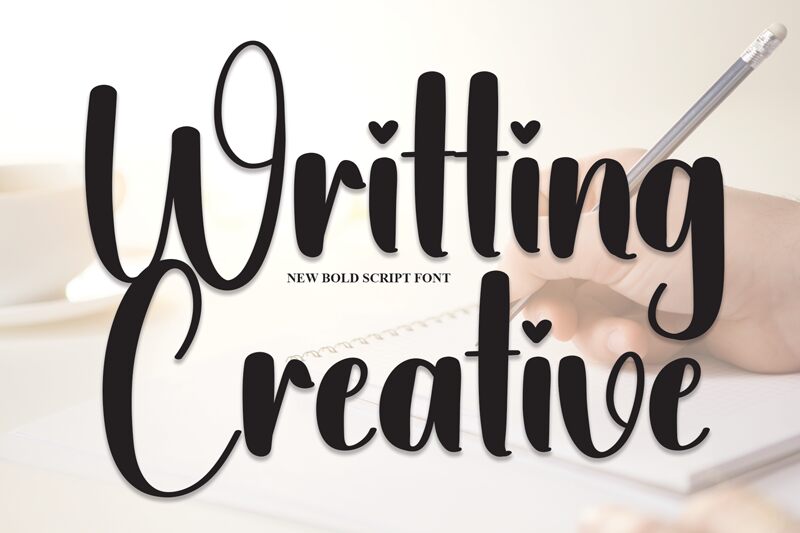
Writting Creative
Writting Creative, a captivating calligraphy font created by Scratchones, is the perfect choice for projects that demand elegance and sophistication.
Its graceful strokes and fluid curves exude a sense of artistry and refinement, making it ideal for wedding invitations, luxury branding, and magazine titles. With its versatile nature, this font effortlessly adds a touch of class to any project, whether it's an upscale restaurant menu or a high-end fashion website.
Allow Writting Creative to elevate your designs with its timeless beauty and impeccable craftsmanship.
The latest style letters are perfect for wall displays, wedding invitations, social media post logos, advertisements, product packaging, product designs, labels, photography, watermarks, invitations, stationery, and any project that requires taste handwriting.
Its graceful strokes and fluid curves exude a sense of artistry and refinement, making it ideal for wedding invitations, luxury branding, and magazine titles. With its versatile nature, this font effortlessly adds a touch of class to any project, whether it's an upscale restaurant menu or a high-end fashion website.
Allow Writting Creative to elevate your designs with its timeless beauty and impeccable craftsmanship.
The latest style letters are perfect for wall displays, wedding invitations, social media post logos, advertisements, product packaging, product designs, labels, photography, watermarks, invitations, stationery, and any project that requires taste handwriting.